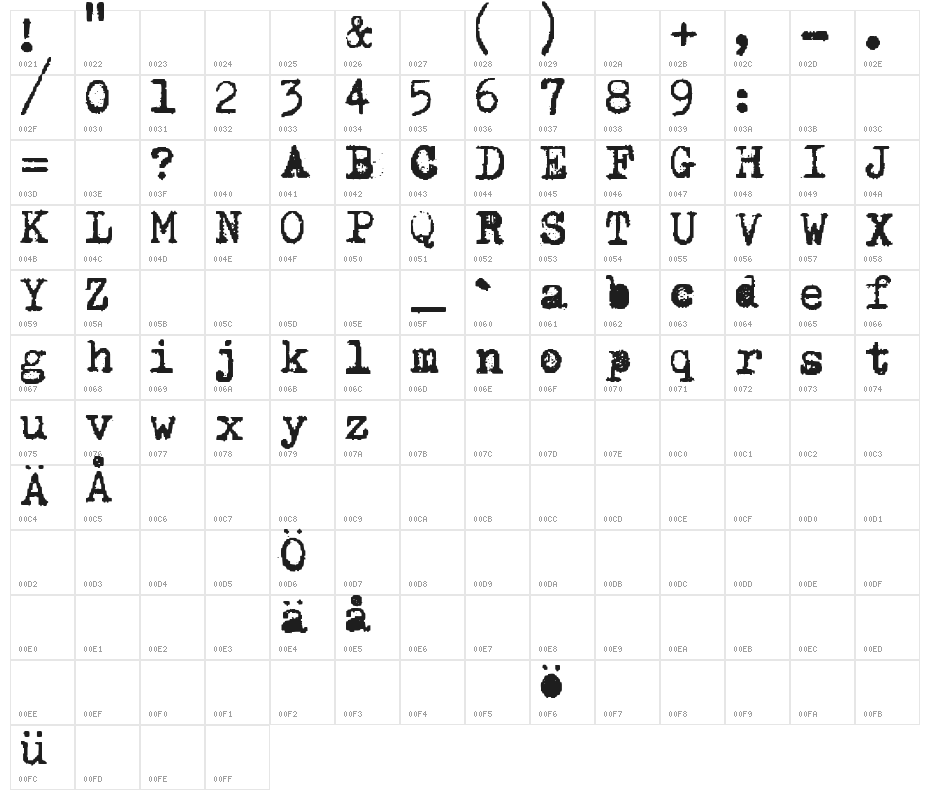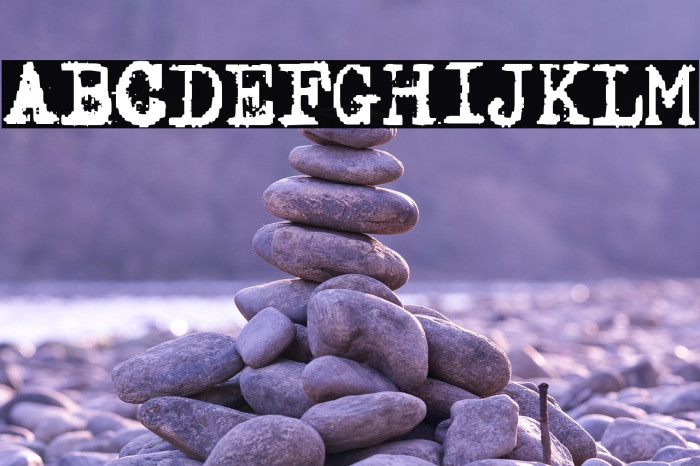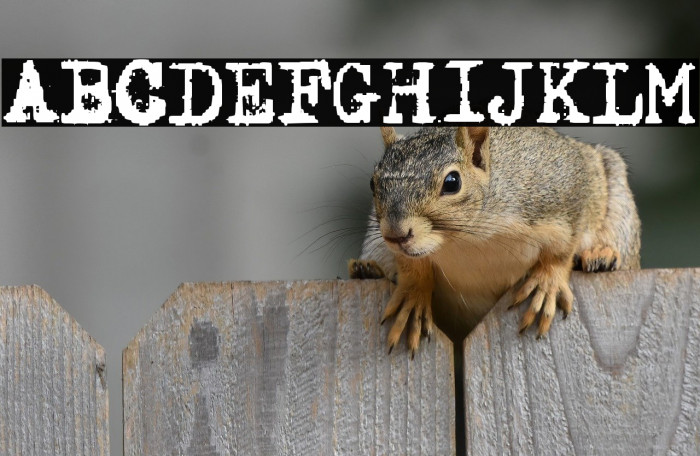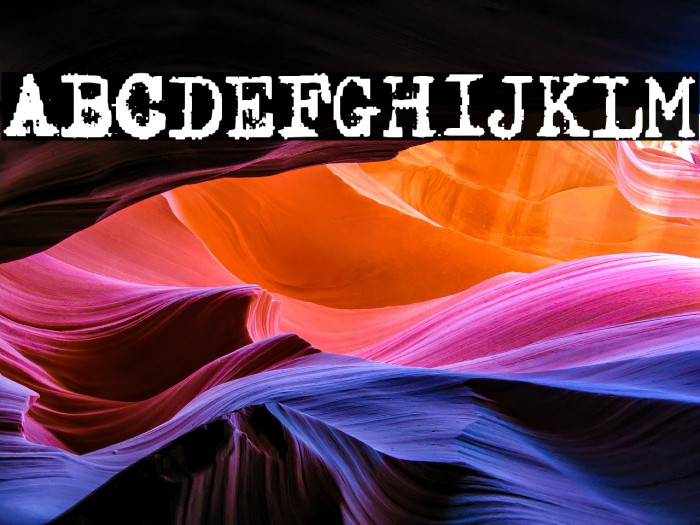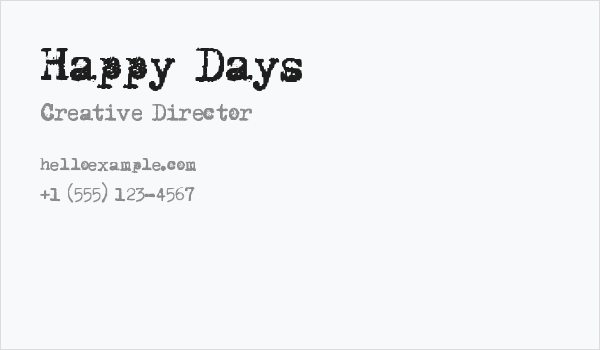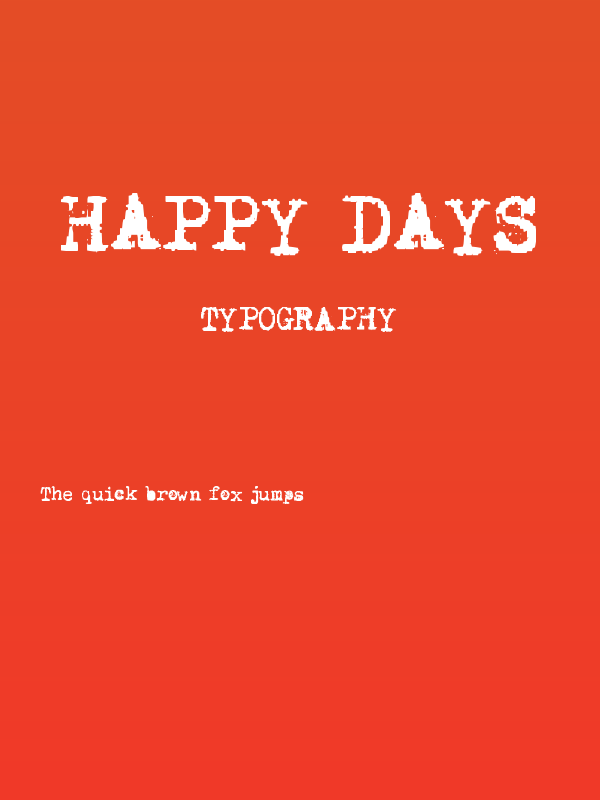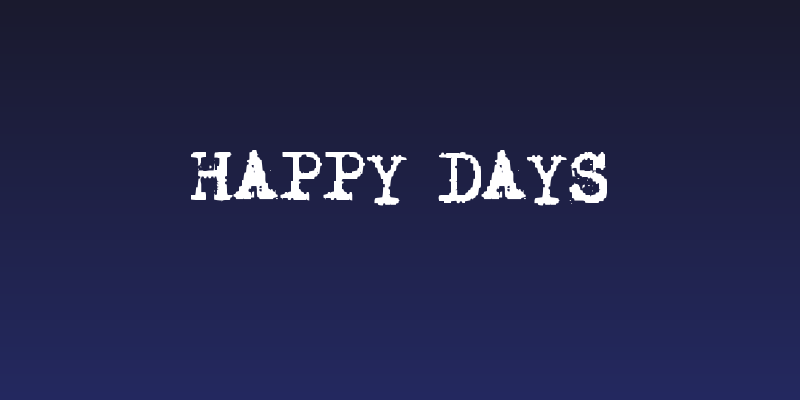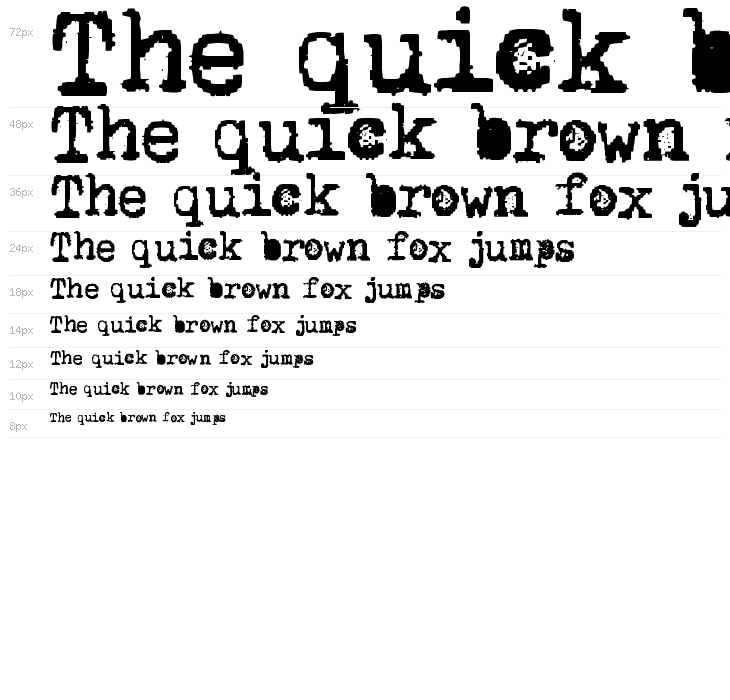
Happy Days Font
Happy Days Description
This font exhibits a rugged, distressed style with a bold presence. Each character appears weathered, as if printed with a worn-out stamp, giving it a vintage, grunge aesthetic. The uppercase and lowercase letters maintain a consistent thickness, with rough edges and irregularities that add to its charm. Numbers and special characters follow the same distressed pattern, ensuring uniformity across all glyphs. This font is ideal for projects that require a touch of nostalgia or a rebellious edge, making it perfect for posters, album covers, or any design that seeks to capture an old-school, gritty vibe.
| Overall Style | Vintage, Grunge |
| Proposed Projects | Ideal for posters, album covers, vintage-themed designs, and rebellious branding. |